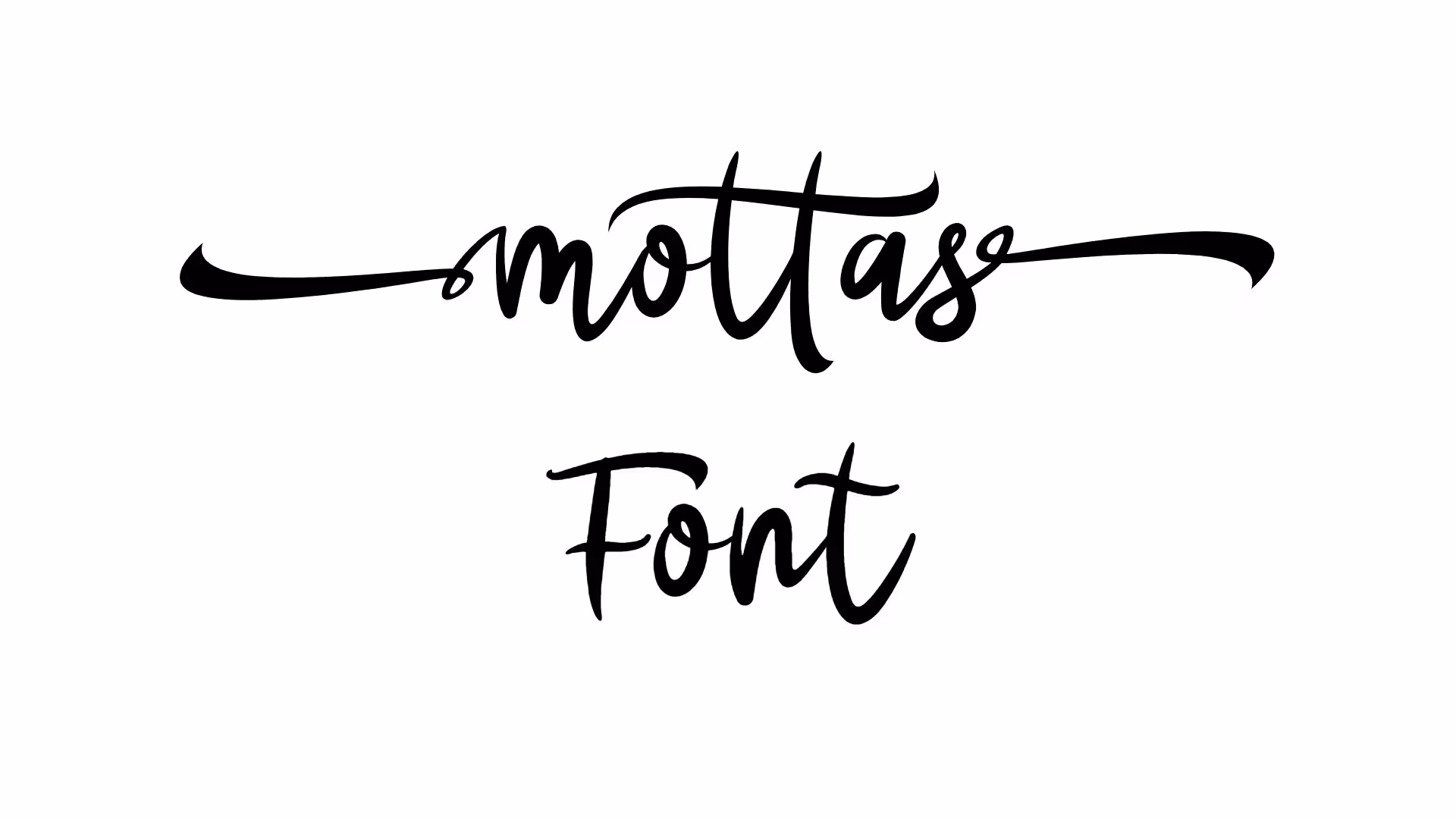
Mottas
Mottas is a calligraphy font created by Oben and released through WDfont. Its flowing, pen-made letters give names and short phrases a personal, polished look. You can download it for free and test it with your own words in the preview above.
- Languages: English, Spanish, German and Italian
You get every letter from A to Z in both cases and all the numbers from 0 to 9, which means Mottas can handle full sentences, dates and prices. Everyday marks like &, !, ? and @ are there too. Thanks to its accented letters, it also works for Spanish, German and Italian, not just English.
Designers usually reach for fonts like Mottas when they're making wedding invitations, certificates and elegant quotes. Script fonts read best in short bursts, so keep it to names, titles and one-line quotes. Skip all caps: script capitals are drawn to start a word, not to fill one.
Yes. Mottas includes the accented letters needed for Spanish, German and Italian, so it works for more than just English.